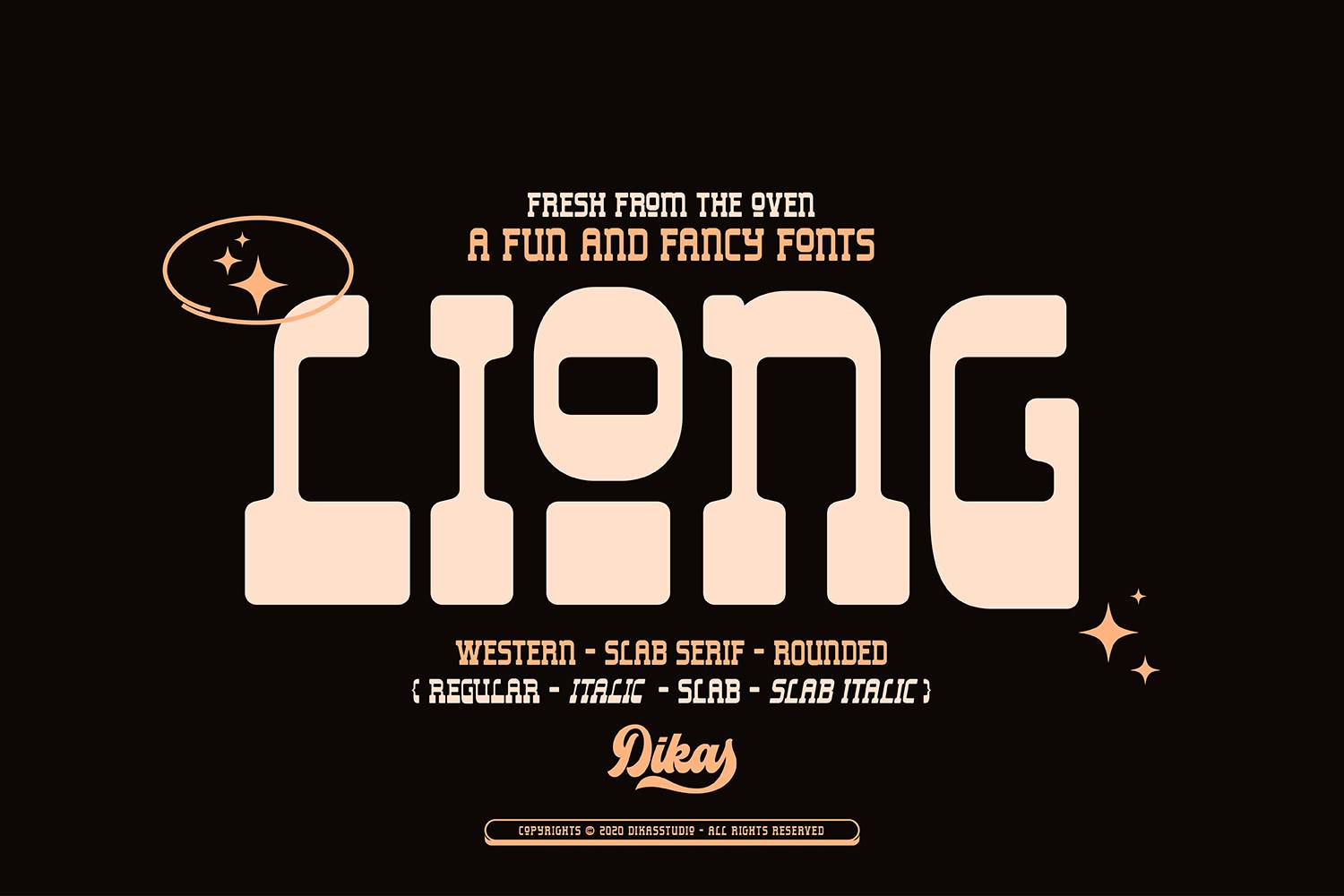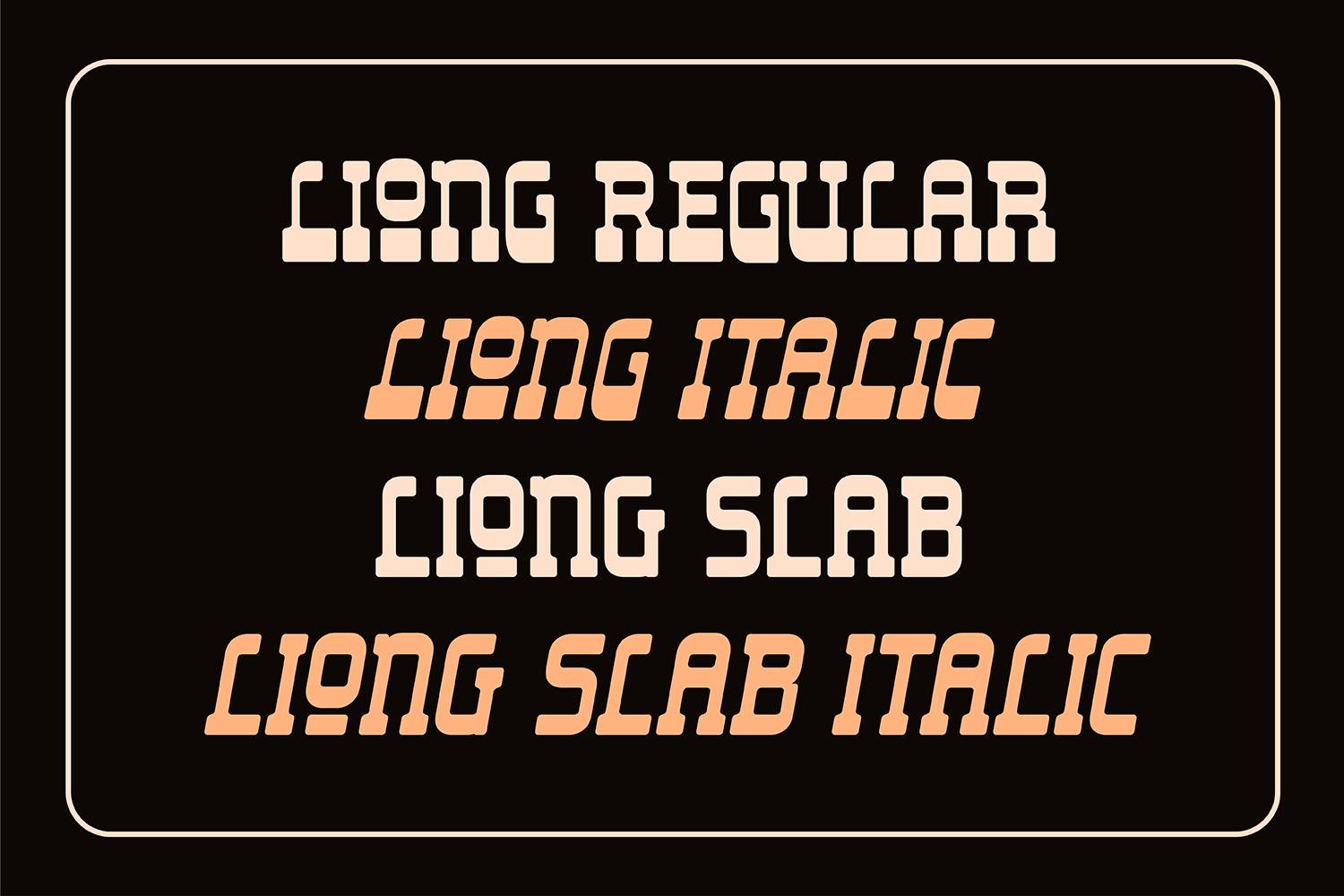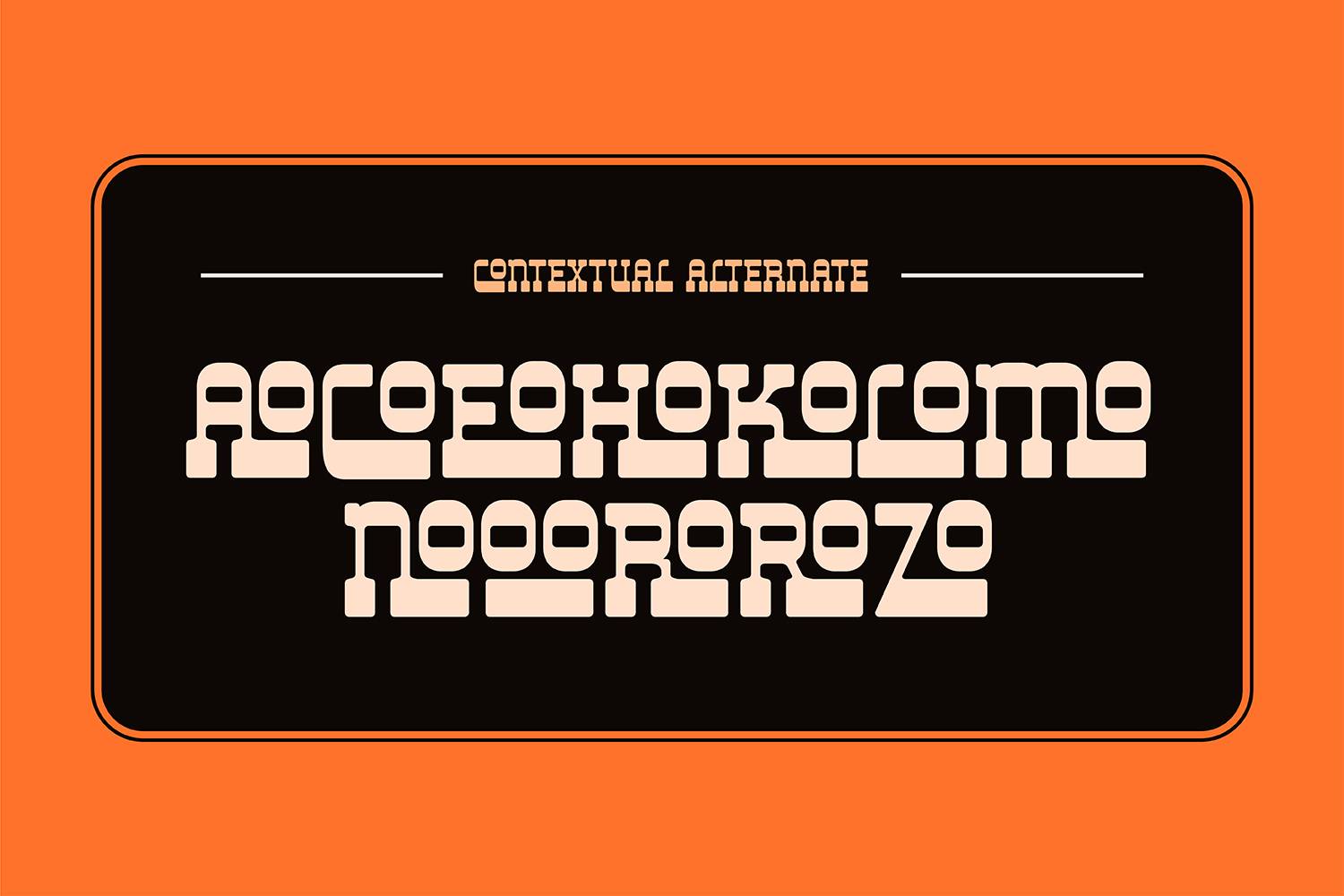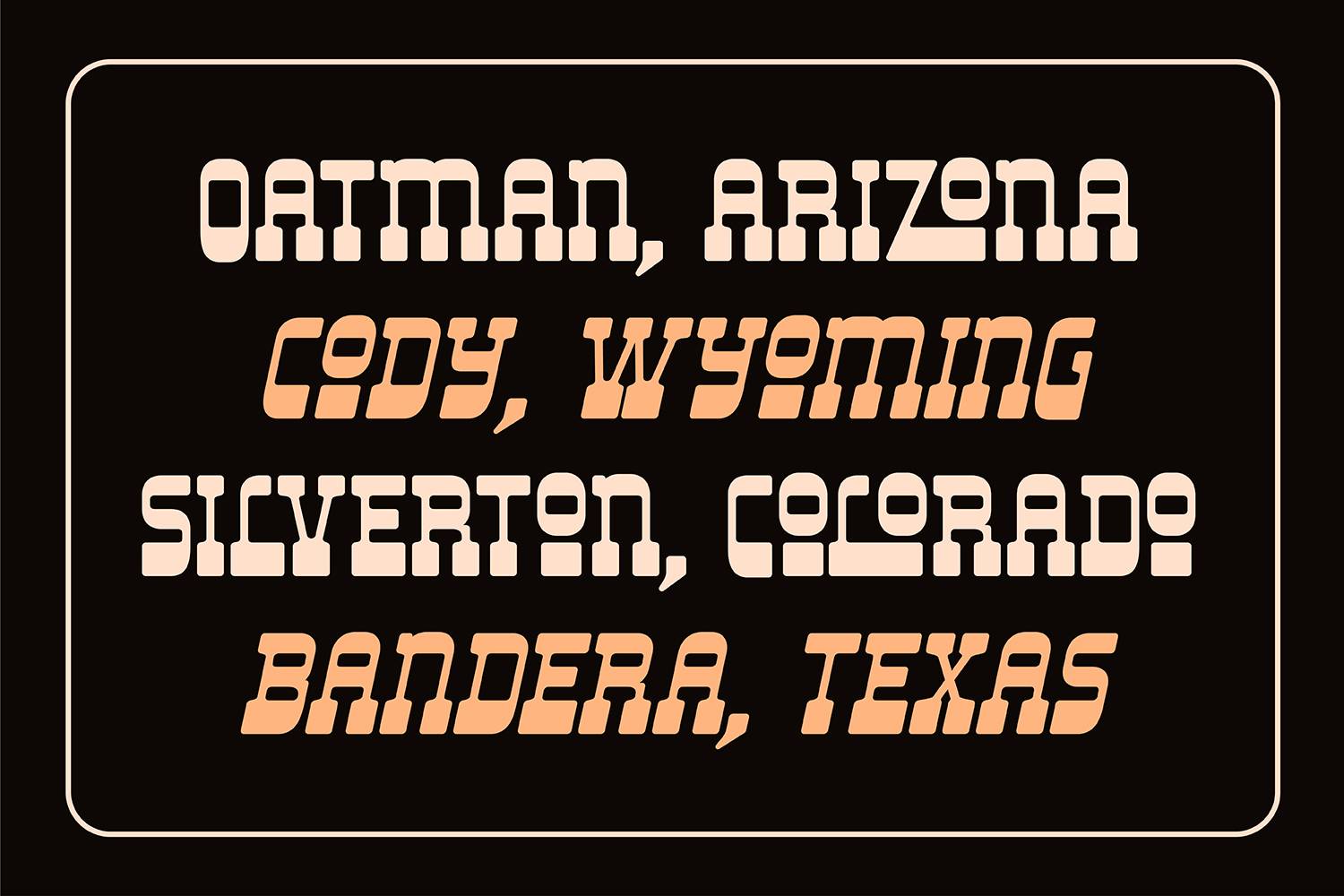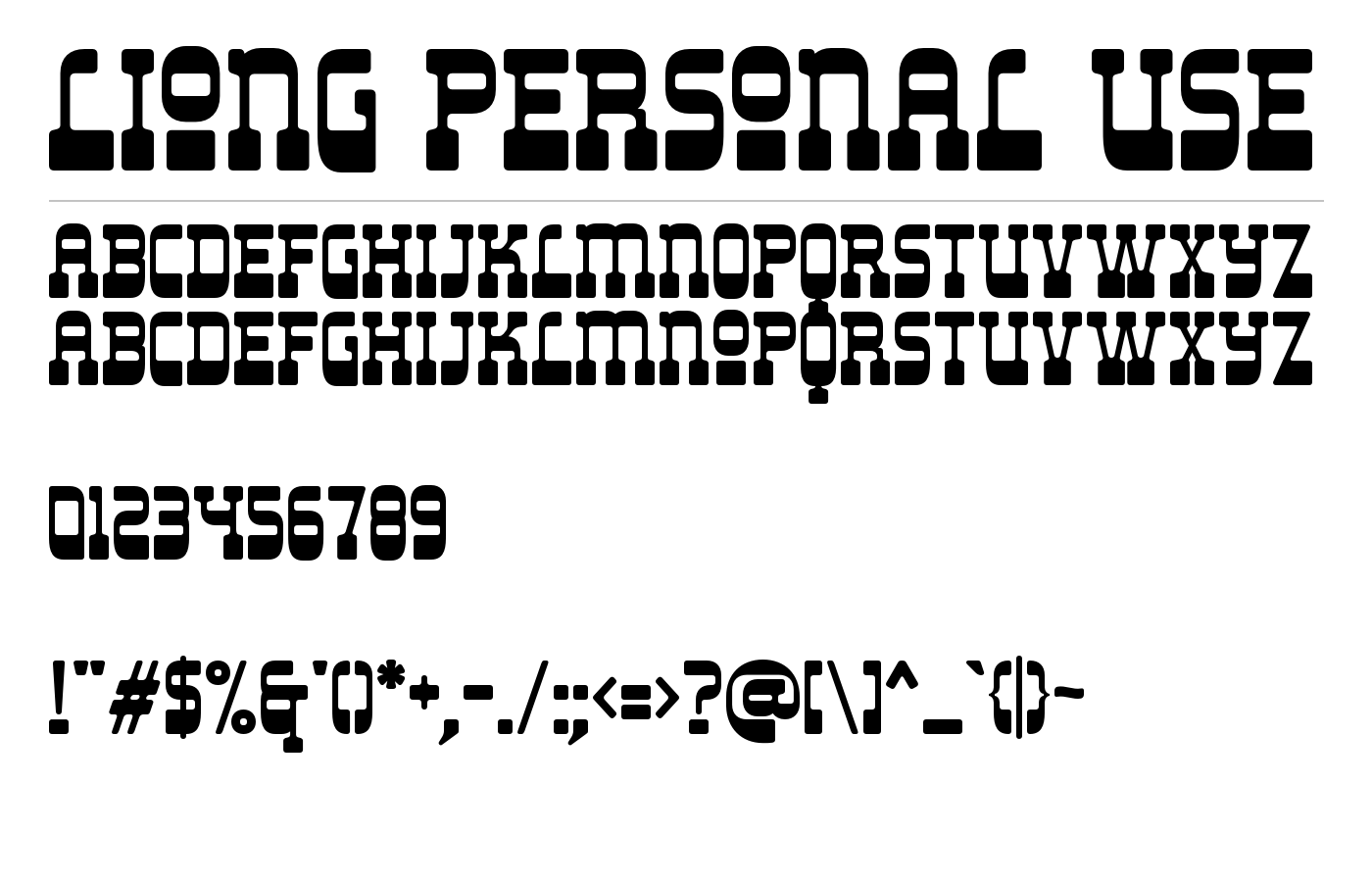
Liong Font is a bold, geometric slab serif typeface with a strong, blocky presence and a slightly futuristic feel. Its high contrast between thick rectangular serifs and narrow counters, combined with unique squared shapes and double-story forms, makes it ideal for impactful headlines, logos, and creative branding projects that want to convey strength and modernity with a touch of personality. This font works well in designs that need a distinctive, attention-grabbing style without sacrificing readability.
Liong Font
About Liong Font